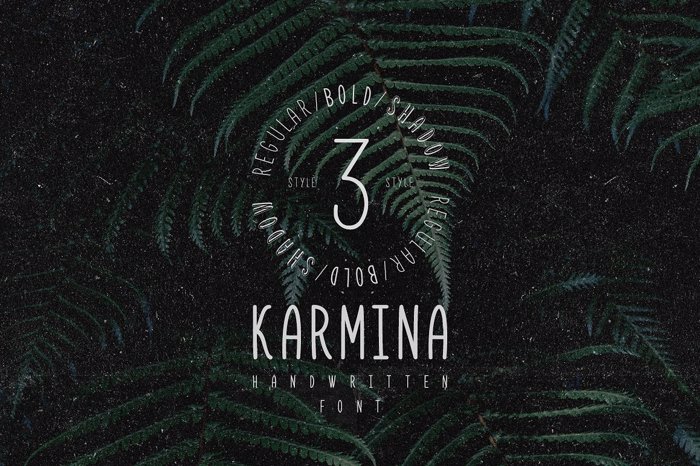
Karmina Bold Font
Karmina Handwritten Font
Karmina is beautiful and easy to read handwritten font. We wanted to create the most generic, readable and balanced handwritten font that would work well in every kind of situation for any kind of design.
This font includes 3 styles; Standard, Bold & Shadow. Karmina comes in 3 formats; OTF, TTF & WOFF.